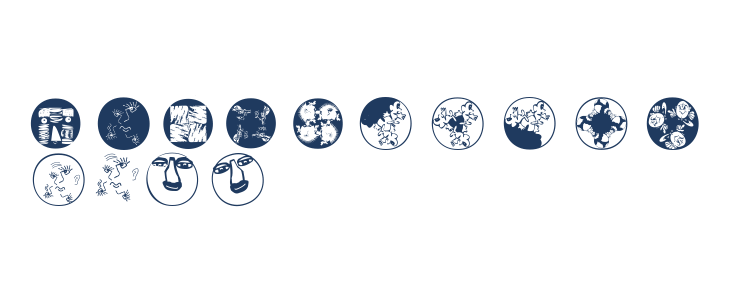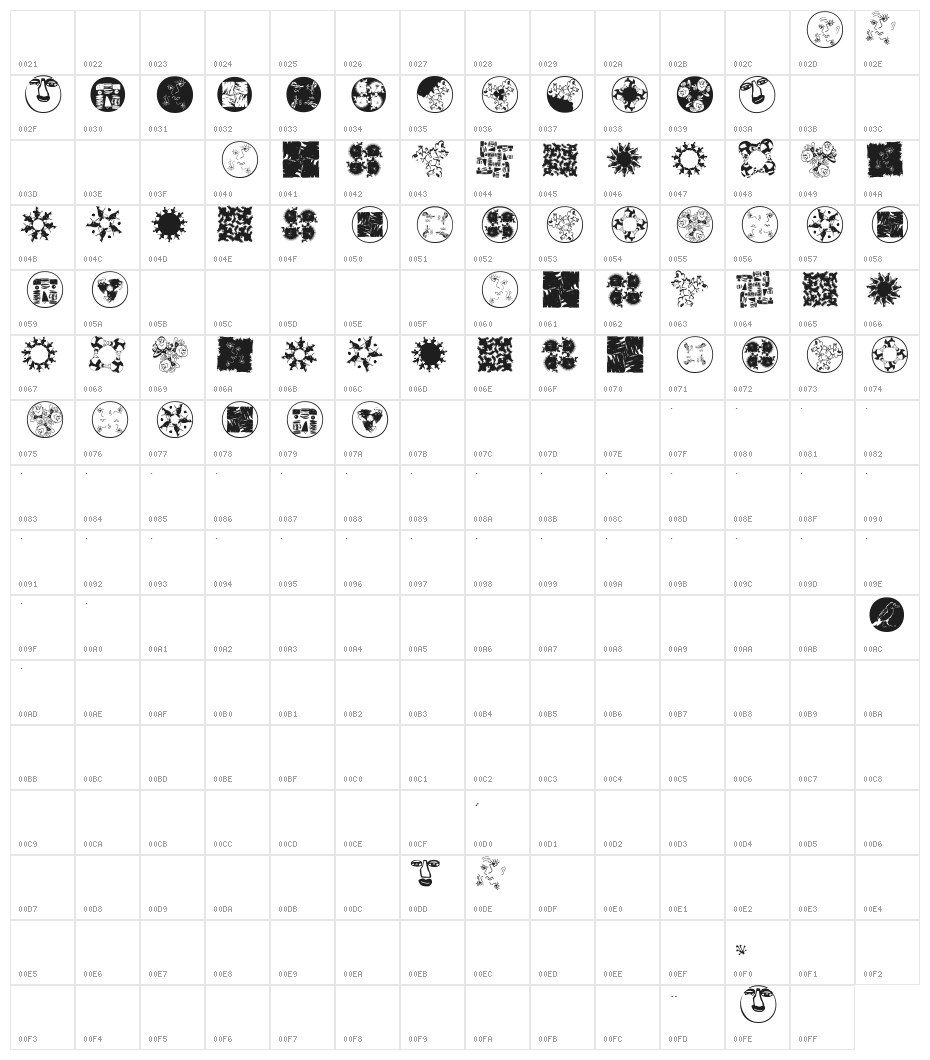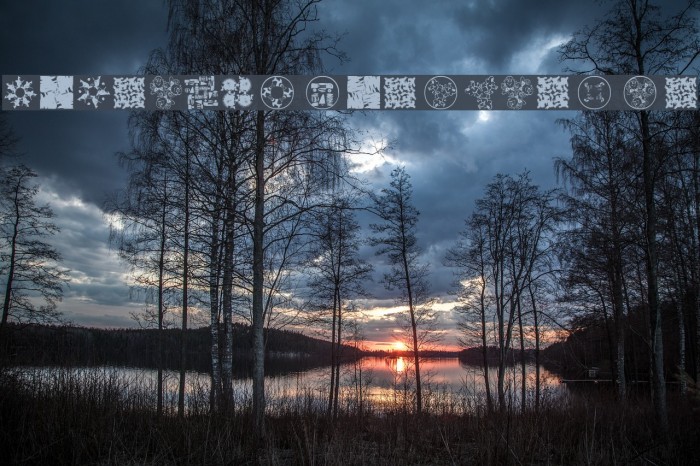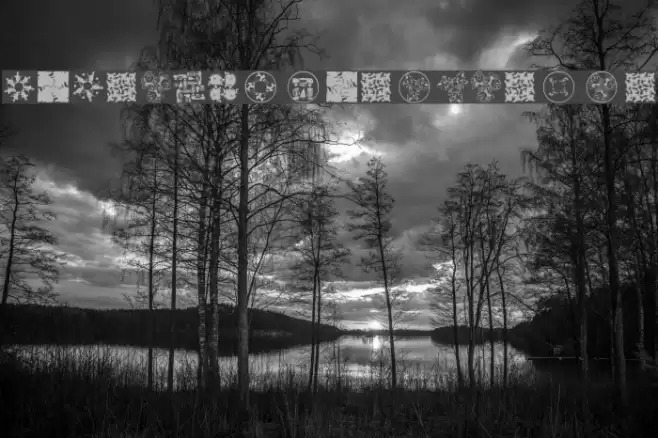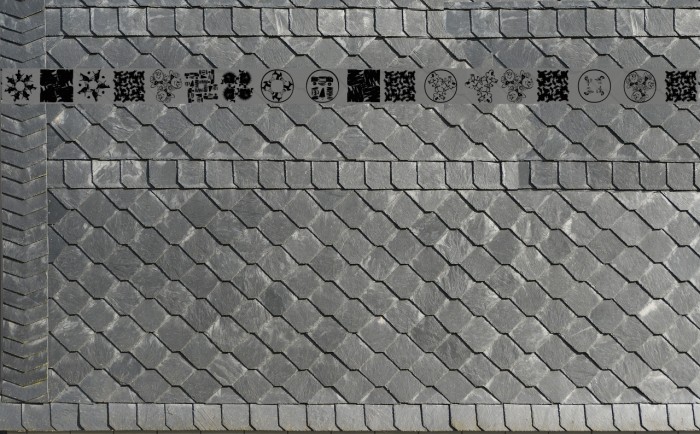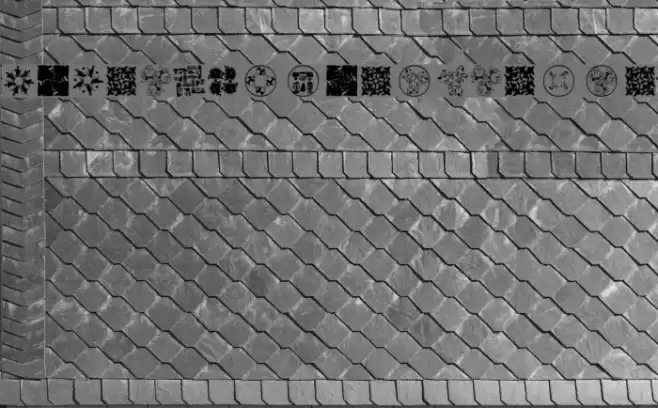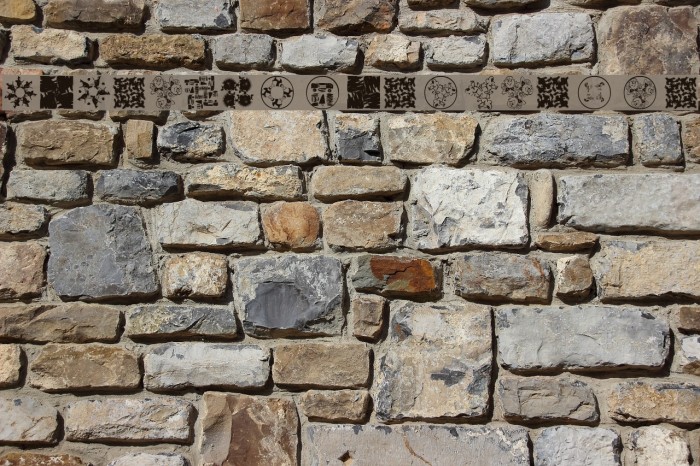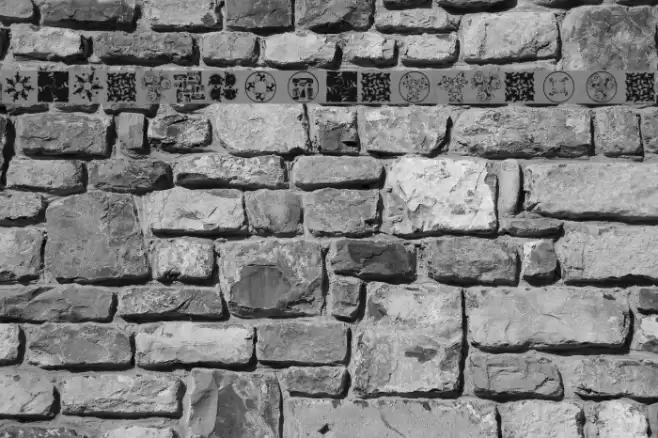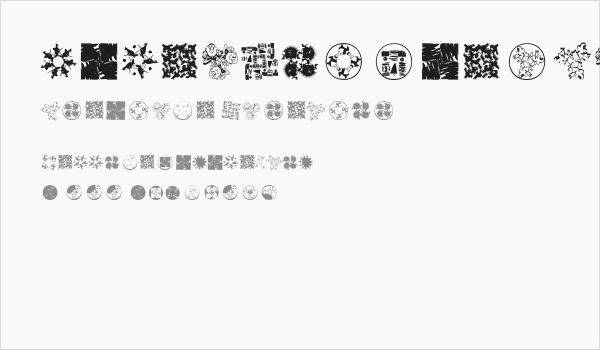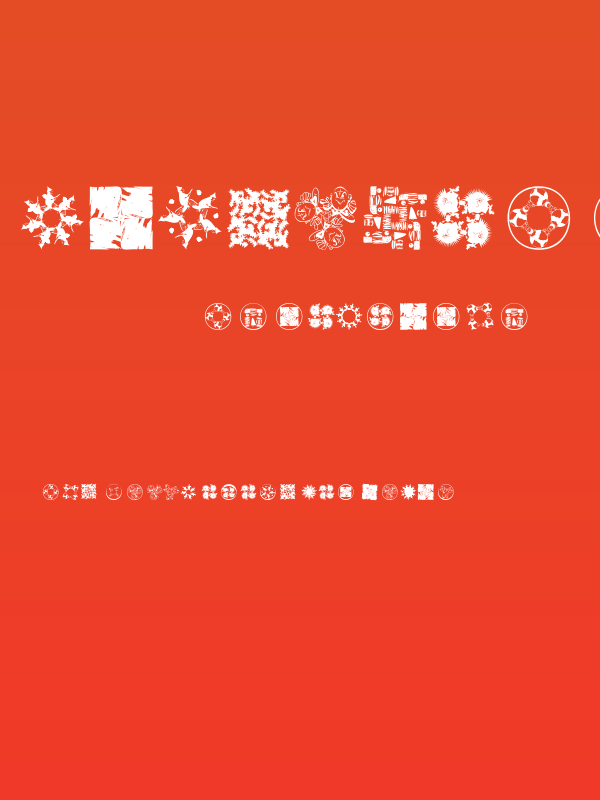
KaleidoTypesCinque Font
KaleidoTypesCinque Description
This is not a traditional font but rather a collection of decorative symbols and abstract designs. Each character is represented by intricate patterns and artistic shapes, resembling kaleidoscopic images or abstract art. The designs are highly detailed and vary significantly from one to another, offering a unique visual experience. These symbols are more suited for artistic and decorative purposes rather than textual communication.
| Use Case | Decorative elements, Artistic projects, Graphic design |
| Proposed Projects | Ideal for artistic projects, decorative elements in graphic design, or as unique icons in digital art. |